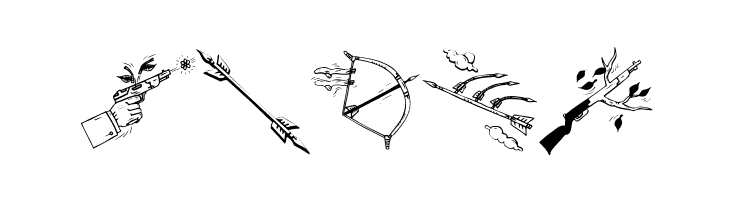
• Pea Stacy's Doodle Script
A playful, whimsical cursive script with intricate swirls and loops.
• Pea Stacy's Doodles
A whimsical collection of hand-drawn doodles featuring flowers, paisleys, and other decorative elements.
• Pea Stefanieva
A playful, handwritten font with a casual and informal style.
• Pea Steph
A playful, handwritten-style font with a casual and personal touch.
• Pea Sue's Print
A playful, casual handwritten font with a lively and dynamic style.
• Pea Superamy
A playful, casual handwritten font with loose, flowing strokes.
• Pea Susan
A bold, playful handwritten font with expressive strokes and a casual feel.
• Pea Tammi
A playful, handwritten font with irregular and organic strokes.
• Pea Tammy
• Pea Tana
A playful, casual handwritten font with dynamic, slanted strokes.
• Pea Tangee
A playful, handwritten font with a casual and informal style.
• Pea The Bees In Love Doodles
A playful, hand-drawn font with whimsical doodles and casual lettering.
• Pea Tiphanie
A casual, playful handwritten font with fluid strokes.
• Pea Tonya
A playful, bold handwritten font with a casual and friendly style.
• Pea Tracy
A playful, casual handwritten font with a relaxed and organic style.
• Pea Valerie
A casual, playful handwritten font with a dynamic and lively appearance.
• Pea Walker
A playful, handwritten font with bold strokes and a casual, approachable style.
• Pea Whinney
A bold, handwritten font with a playful and informal style.
• Pea Whinney Skinney
A playful handwritten font with a casual and friendly vibe.
• Pea XOXO from Karen
A playful, casual handwritten font with fluid, connected letterforms.
• Pea Yar Yar
• PeaceTools
An illustrative font merging peace symbols with weaponry for visual storytelling.